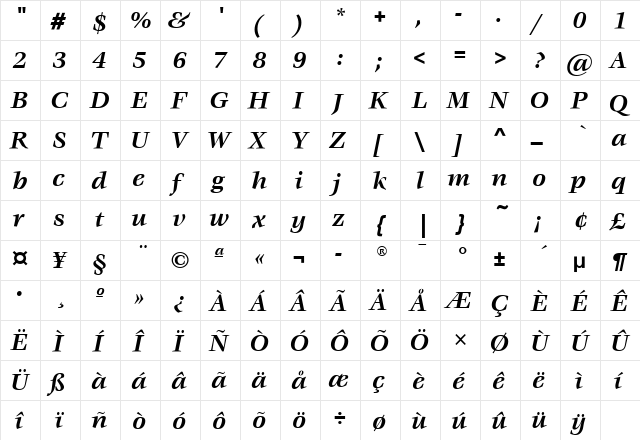
VeljovicITC Bold Italic Font Preview
VeljovicITC Bold Italic
VeljovicITC Bold Italic Font Details
Design Context for VeljovicITC Typeface
VeljovicITC is a composed and adaptable typeface that performs quietly and consistently across a wide range of design contexts. The dynamic lean of this cut emphasises speed and emphasis in any layout. The heavy weight commands attention and anchors typographic hierarchies.
Pro Tip: Use VeljovicITC for emphasis, pull quotes, and subheadings where its slanted energy can add rhythm to the layout.